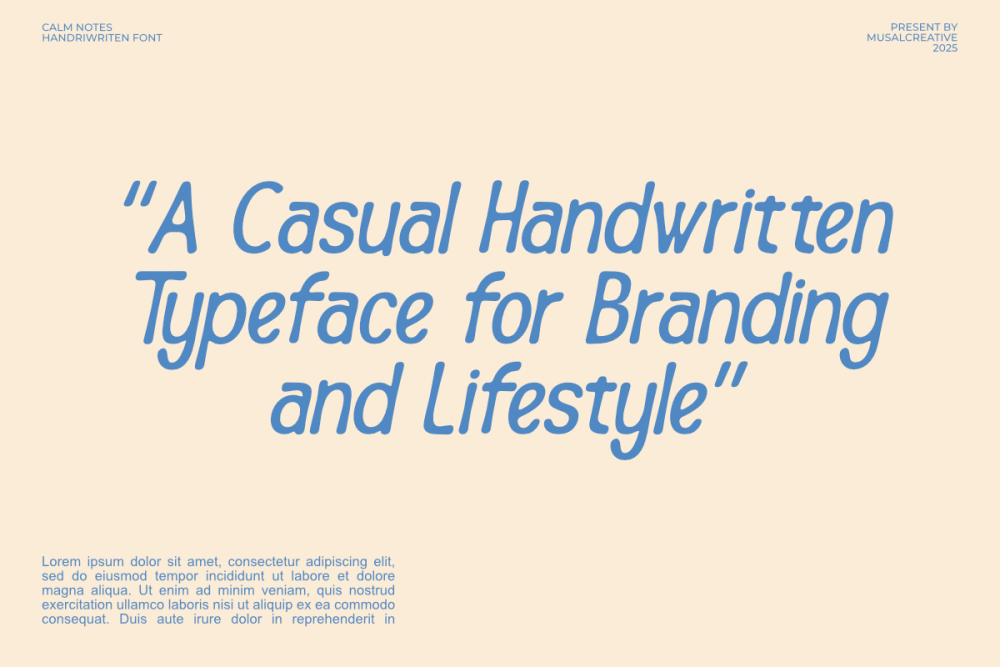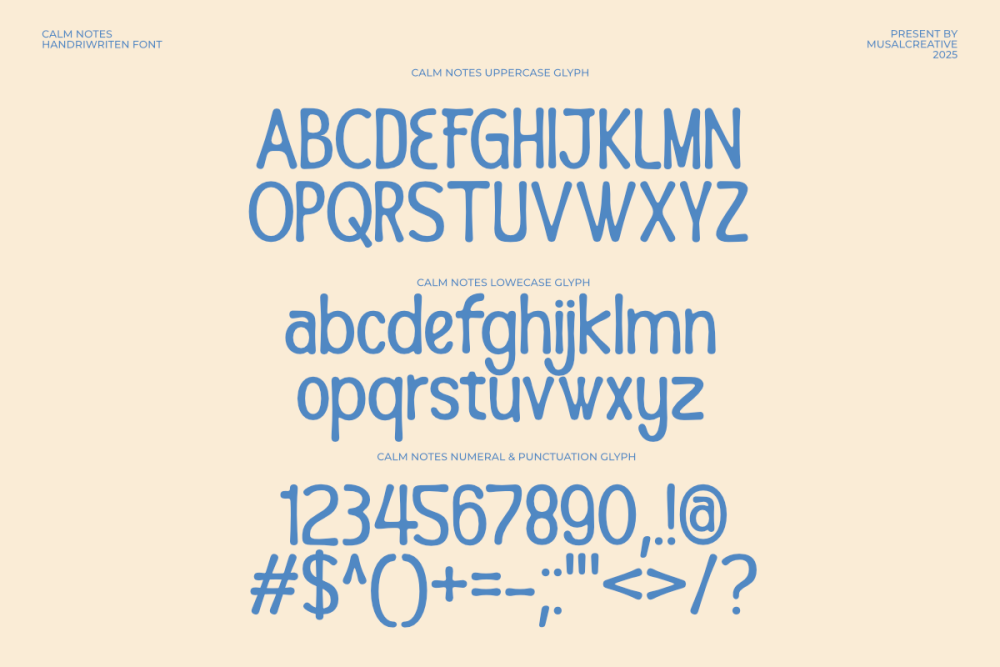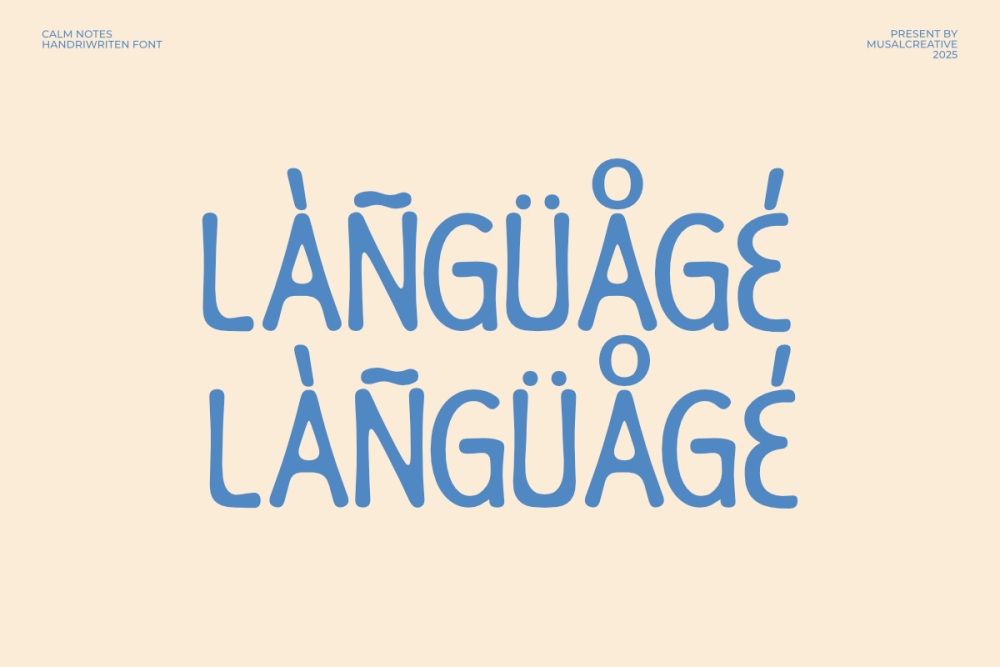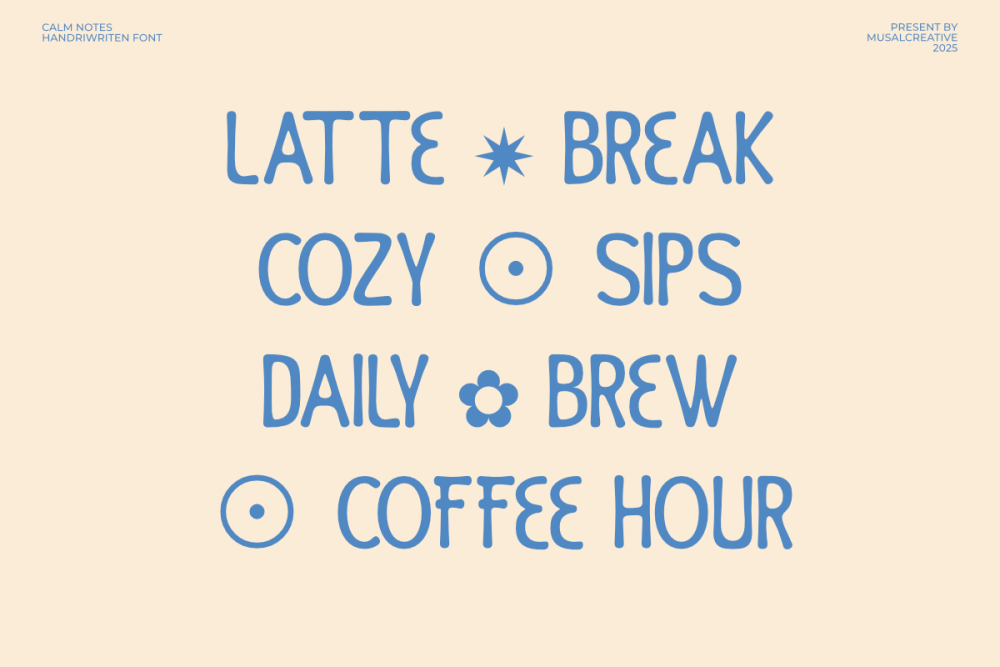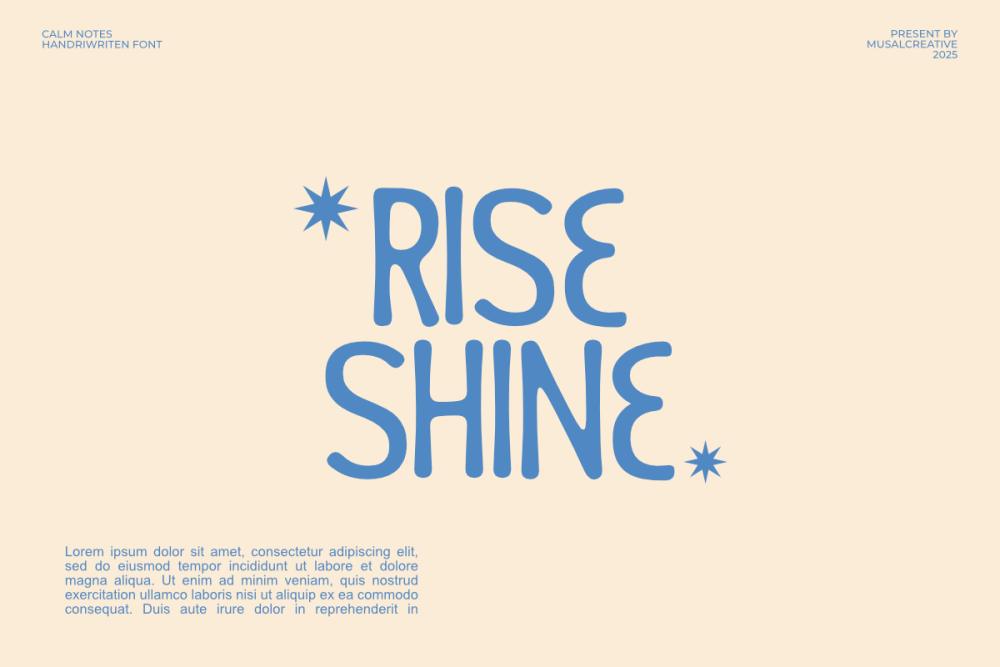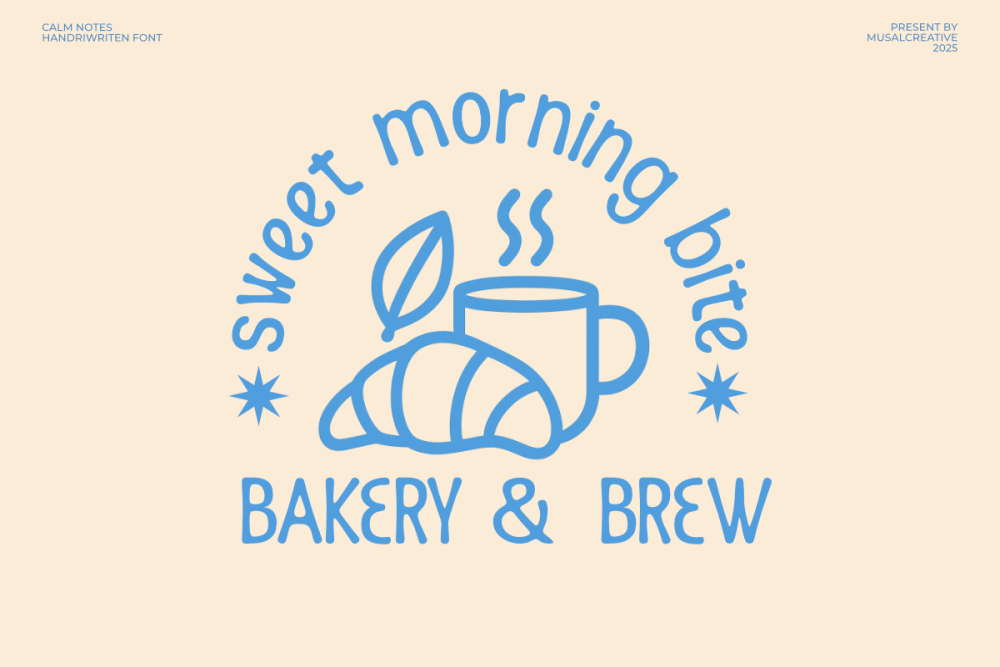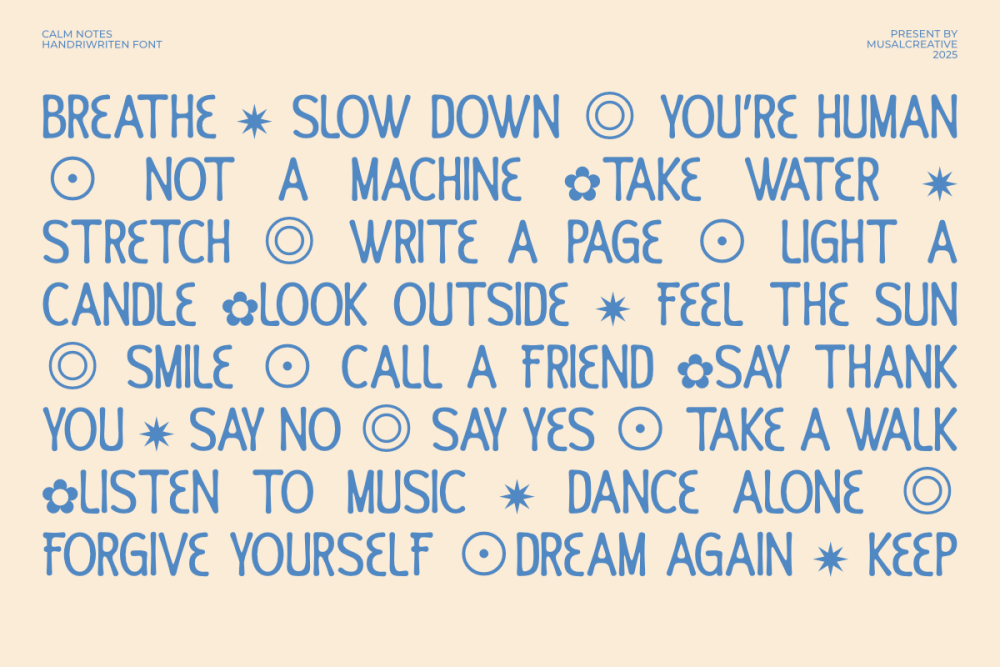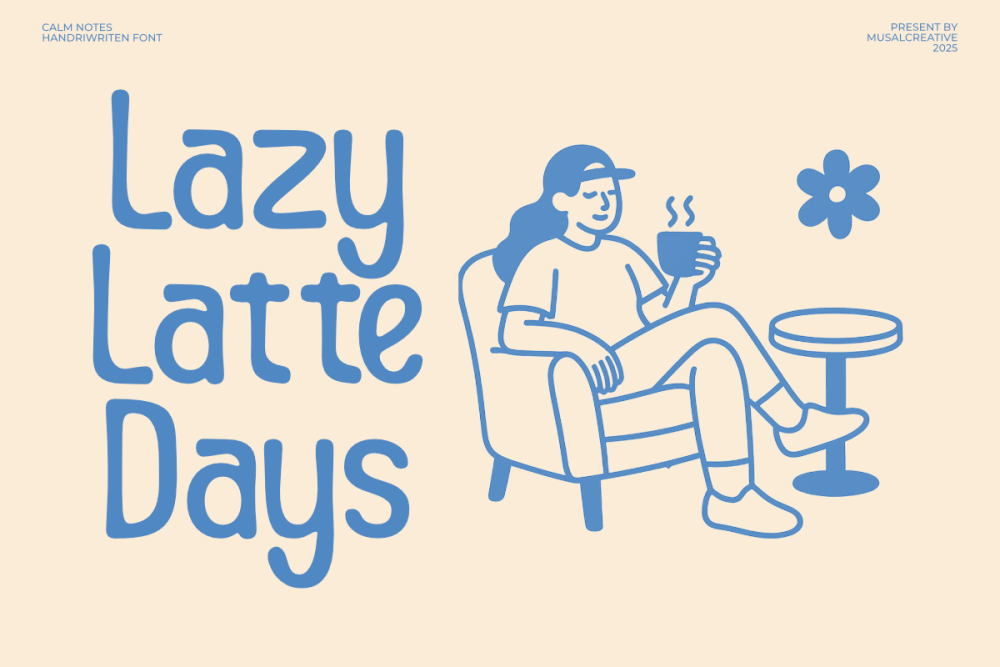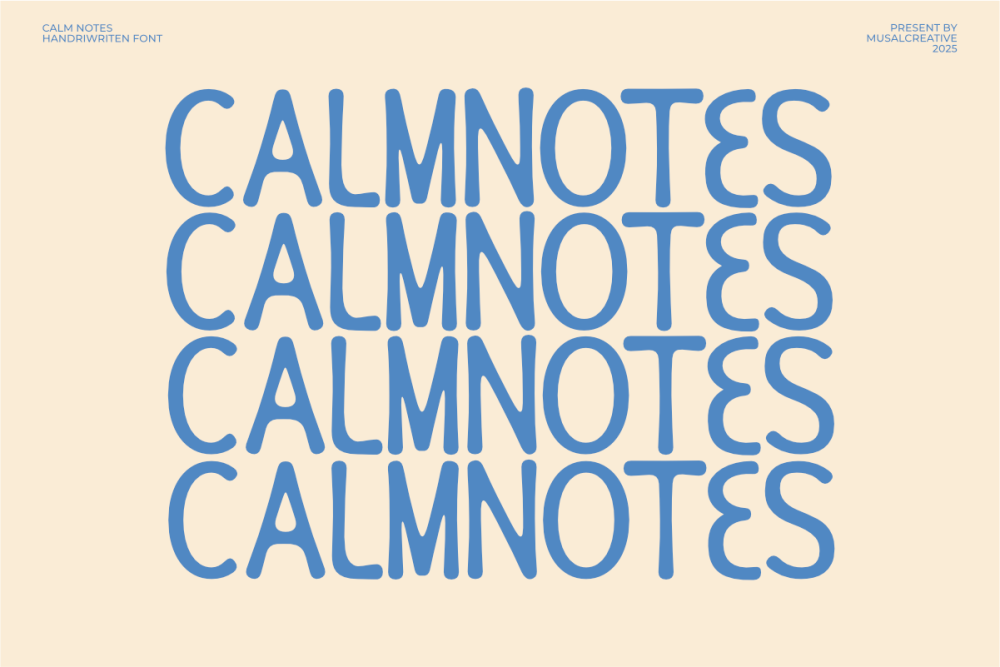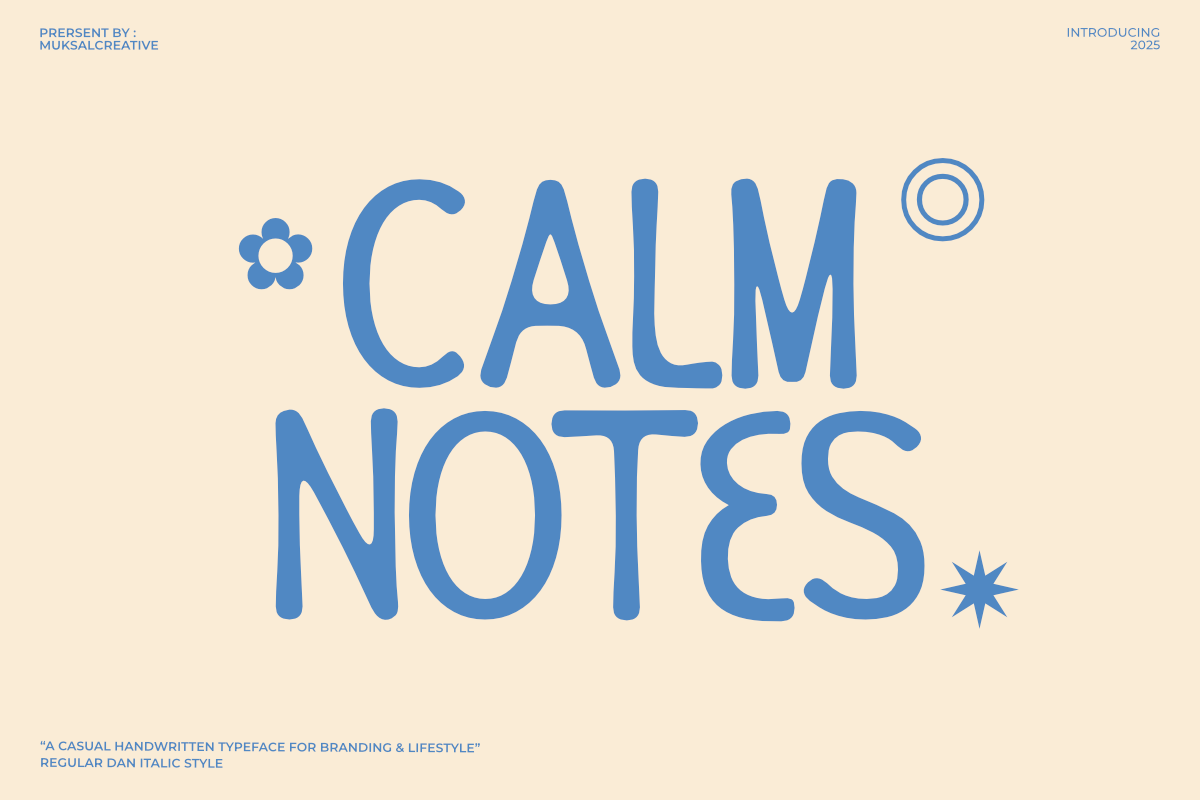
Calm Notes is a casual handwritten typeface designed to bring warmth, personality, and a touch of lifestyle charm into your projects. With its relaxed strokes and playful curves, this font feels natural and approachable—perfect for branding, packaging, social media, and editorial designs.
Inspired by everyday moments like sipping coffee, journaling, or enjoying a slow Sunday morning, Calm Notes captures the essence of cozy living. It works beautifully for lifestyle blogs, coffee shop branding, stationery, greeting cards, or any design that needs a friendly, handwritten feel.
The font includes Regular and Italic styles, making it versatile for pairing headlines with body text or creating dynamic typographic compositions. Bring a sense of authenticity and comfort to your work with Calm Notes—a typeface that feels handwritten, heartfelt, and human.
Uppercase & Lowercase Letters
Numbers & Punctuation Included
Multilingual Support
Ligatures
Elegant Serif Details with Subtle Contrast
Optimized Kerning for Readability